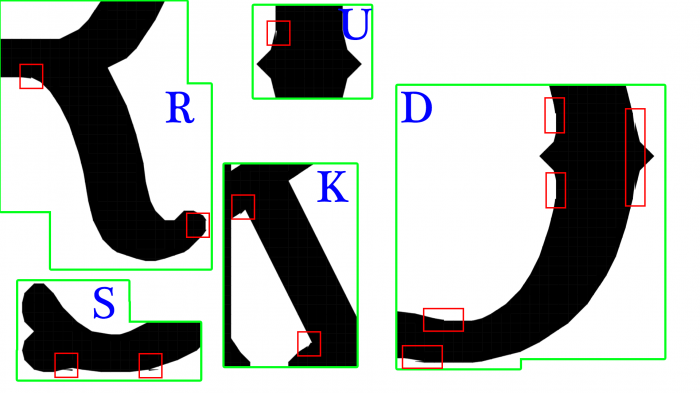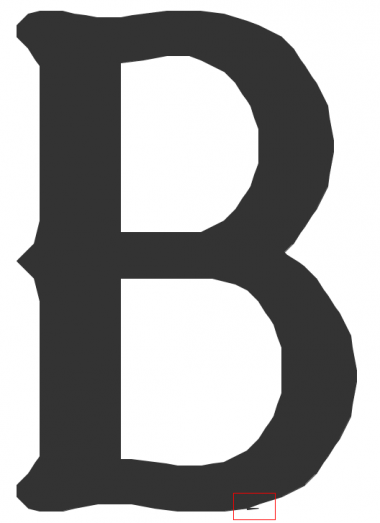
very elegant and consistent typeface. has a garamondish feeling to it. westward ho, indeed! :-)
Well balanced serif font with a hint of the Wild West. Love the subtle curves on E, F, L, z. 10/10
8O This is possible with Fonstruct? :O
Where's John Wayne when you need him? Wagon, ho!
Beautiful!
There are some extra bricks on the bottom of B and c.
AMAZING! Go west :D 10/10+fav
Congratulations! FontStruct Staff have deemed your FontStruction worthy of special mention. “RM Westward Ho!” is now a Top Pick.
@architaraz: I had a good look and couldn't find any extra bricks.
Oh, maybe it's intentional then:
Dang me! I didn't even see that ... Thanks a million to you and your eagle eyes. :)
Wow! I have missed this one! Congrats for the TP!
:o 10/10
I really like how when done large scale like this, the letters appear to be written on water paper. Great job!
This was actually the original inspiration for Goldminer.
this smoooothes font is so great
*ONE OF the original inspirations. I had a lot of them...
A terrific achievement in Fontstruct!
it has high readibilty and legibility
niceee
proper for headline text
There is a bunch of more corrupted and stray bricks in your font p2p, similar to the one architaraz also pointed out. D,K,R,S,U,V,W,a,b,k,r,u,w (and a couple more glyphs, but these are Less drastic). I compiled a few for you. most of the bricks only have slight nudge ofset, thats all! Cheers
@STF and the M,N,k,m,n as well...
Meant: M,N,h,m,n